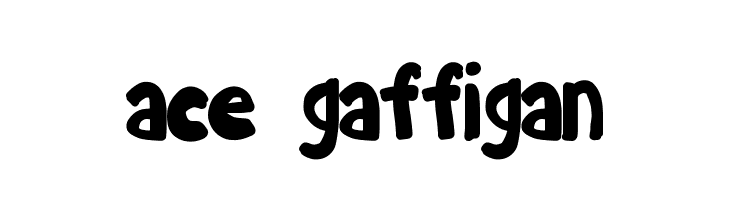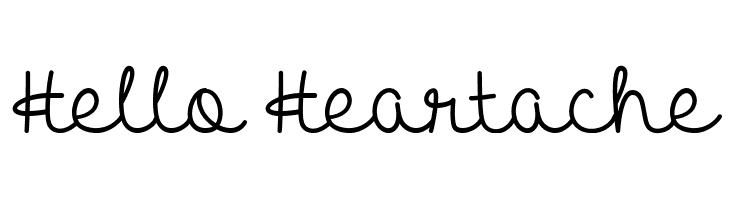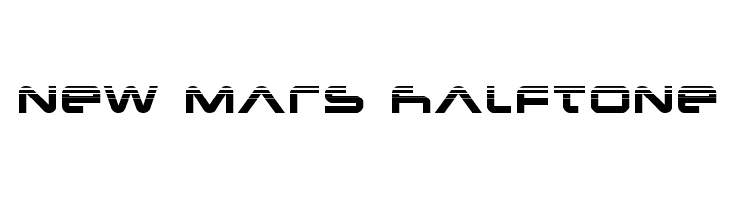
A playful, handwritten script font with a whimsical and casual style.
A bold, decorative font with historical and artistic influences.
A minimalist font featuring repetitive exclamation marks for modern design.
A playful, bold font with rounded, thick strokes and a whimsical touch.
A bold, decorative font with star-shaped cutouts and a modern, playful style.
A bold, blocky outline font with a playful, retro style.
A monoline script font with a casual, flowing style and consistent stroke width.
A sleek, geometric font with a modern, minimalist aesthetic.
A futuristic, bold font with a halftone effect and geometric design.
A gritty, distressed font with sharp, angular edges and a rebellious aesthetic.